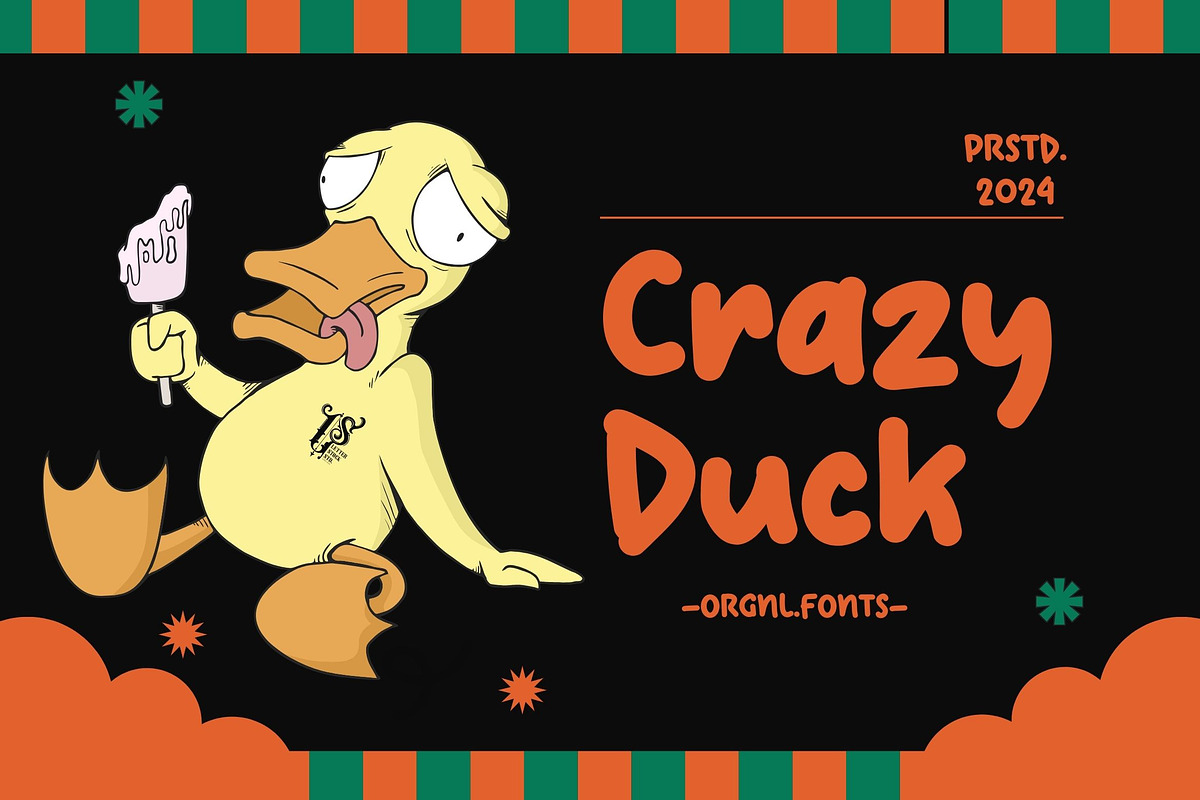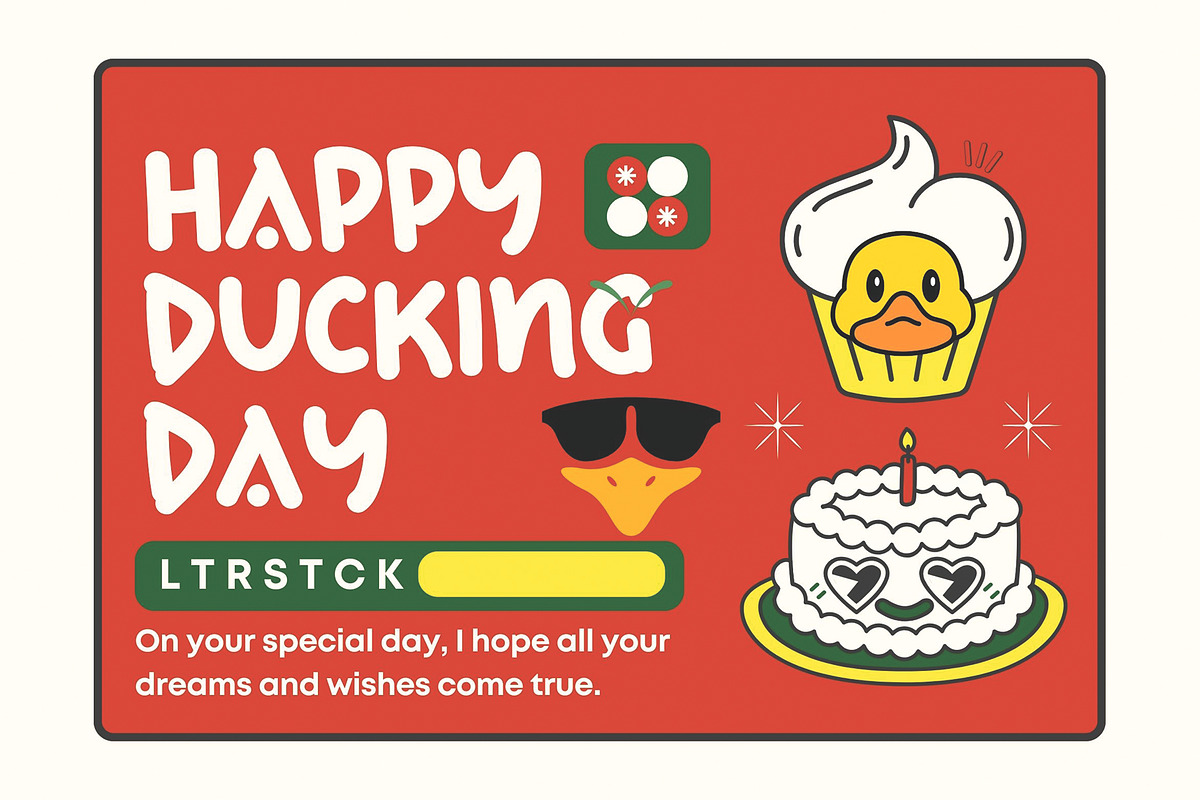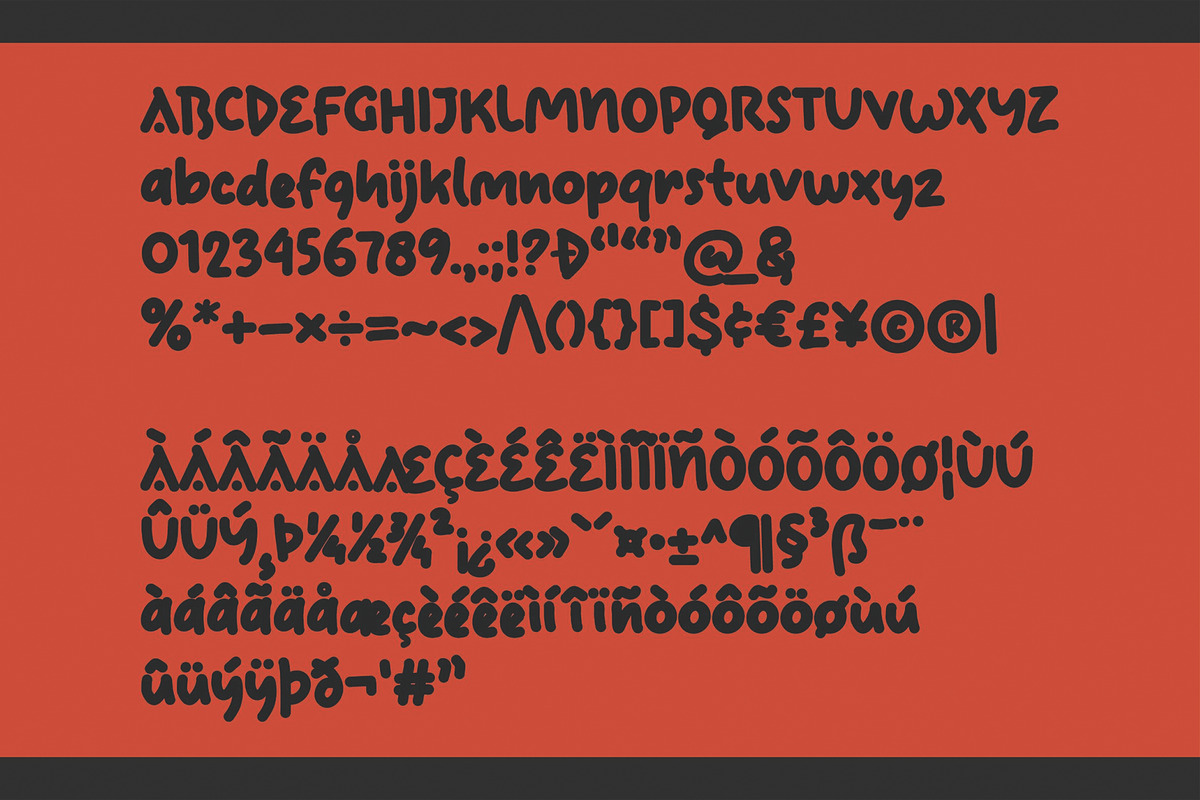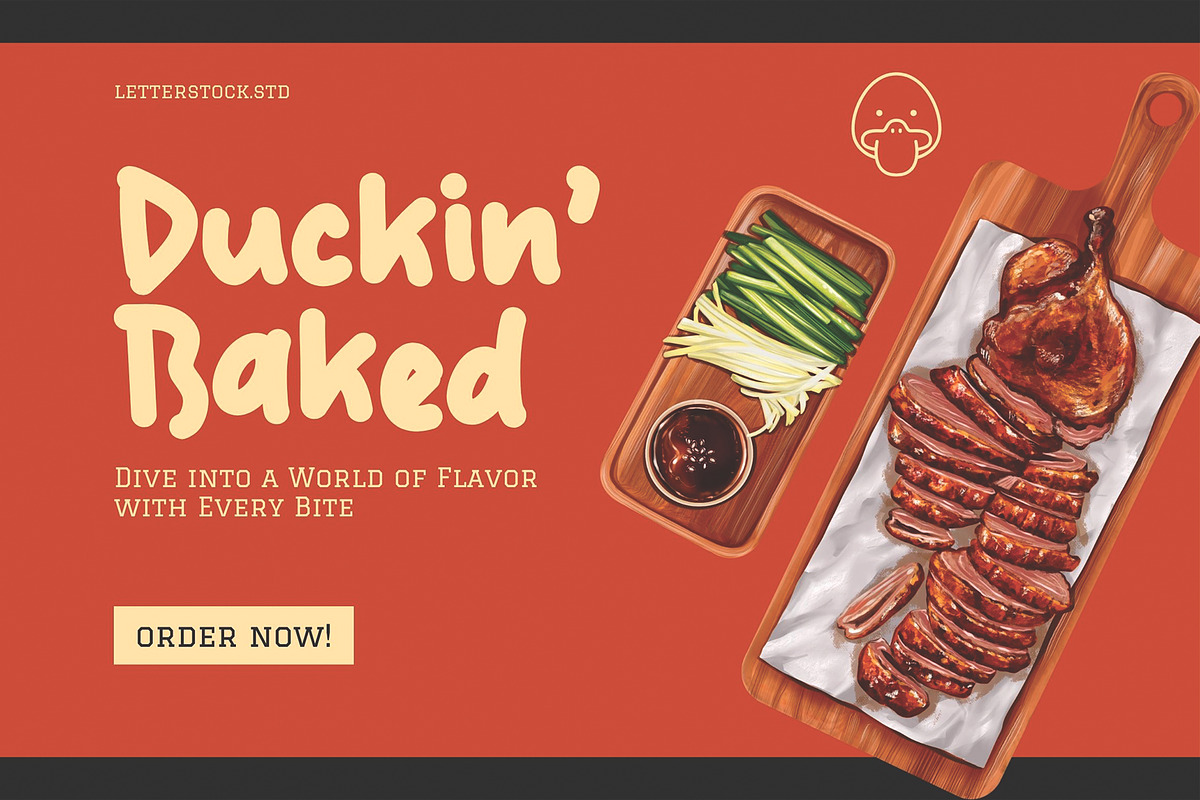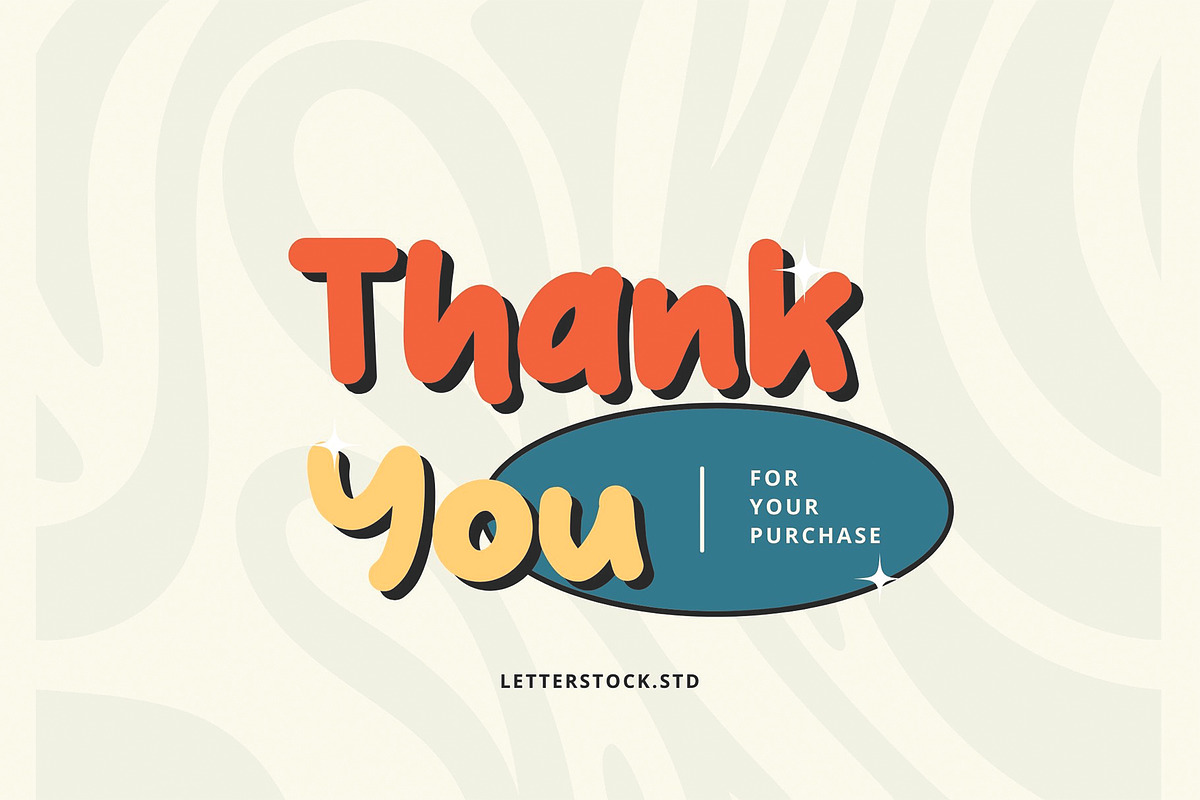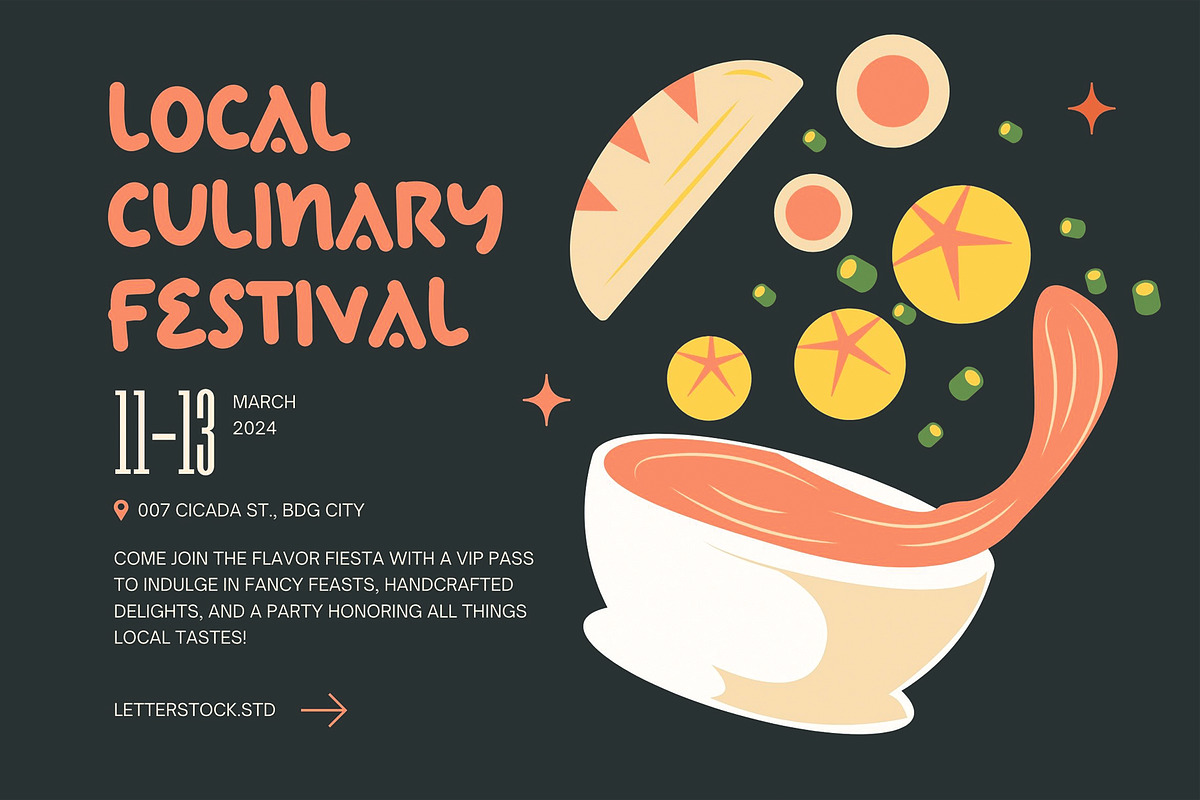
Crazy Duck
Introducing "Crazy Duck" – an original hand-drawn font with retro 60's decorative vibes. Embrace the nostalgia of the past with this charming and playful typeface. Perfect for adding a touch of whimsy to your designs, "Crazy Duck" is ideal for posters, logos, invitations, and more. With TTF, OTF, and WOFF files included, it's easy to bring your creative vision to life.
Unlock a world of retro-inspired possibilities with "Crazy Duck" today!
Original hand-drawn design Retro 60's decorative vibes Perfect for posters, logos, invitations, and more TTF, OTF, and WOFF files included for easy use